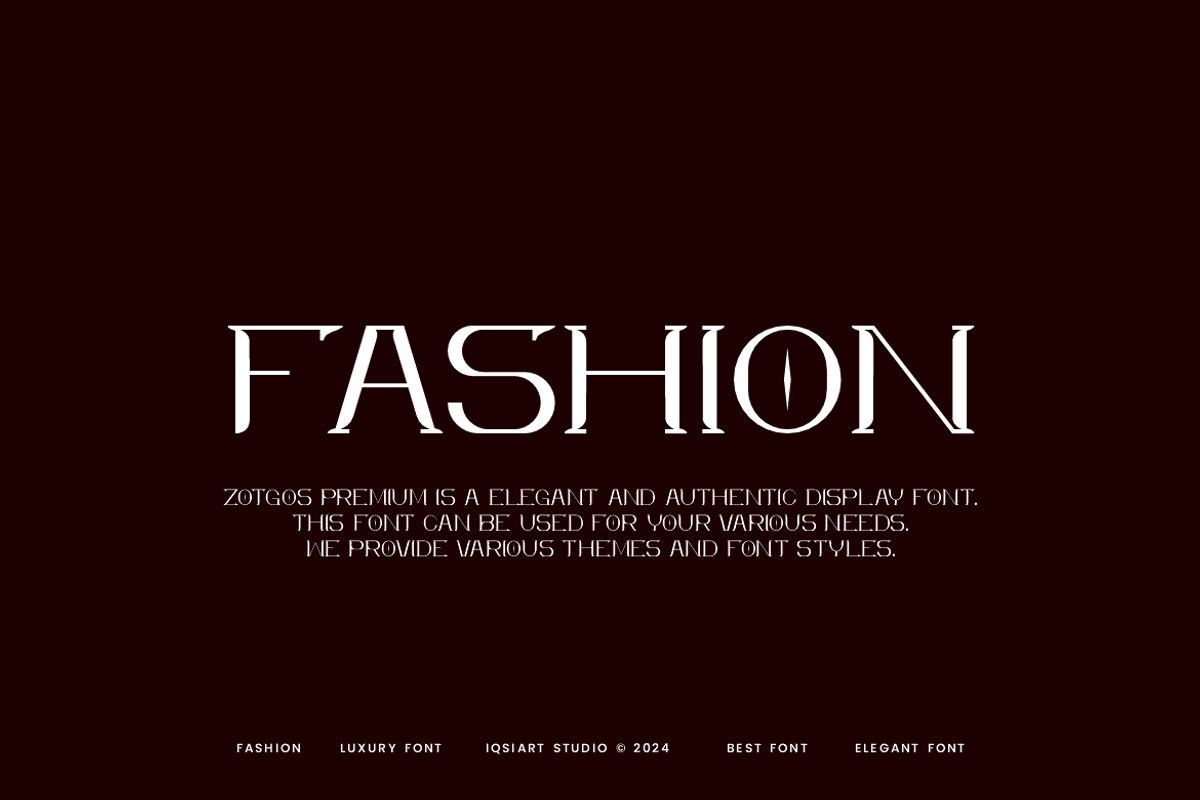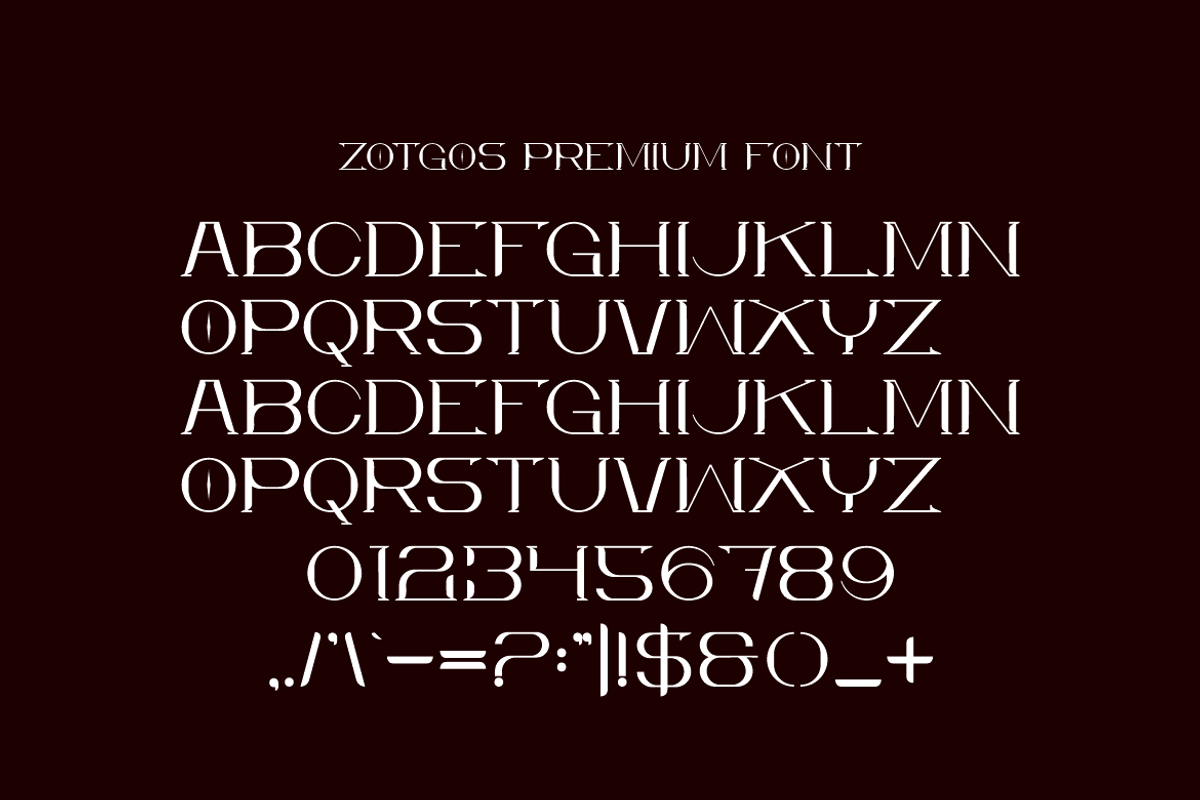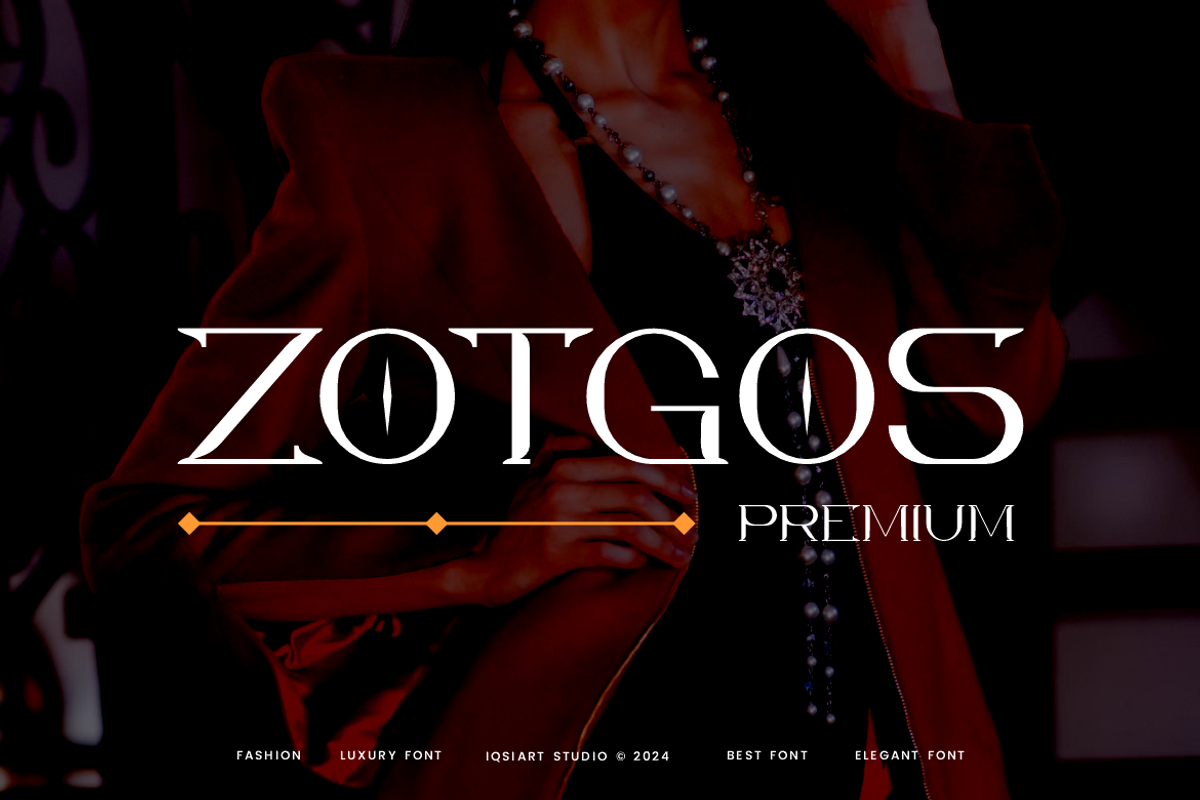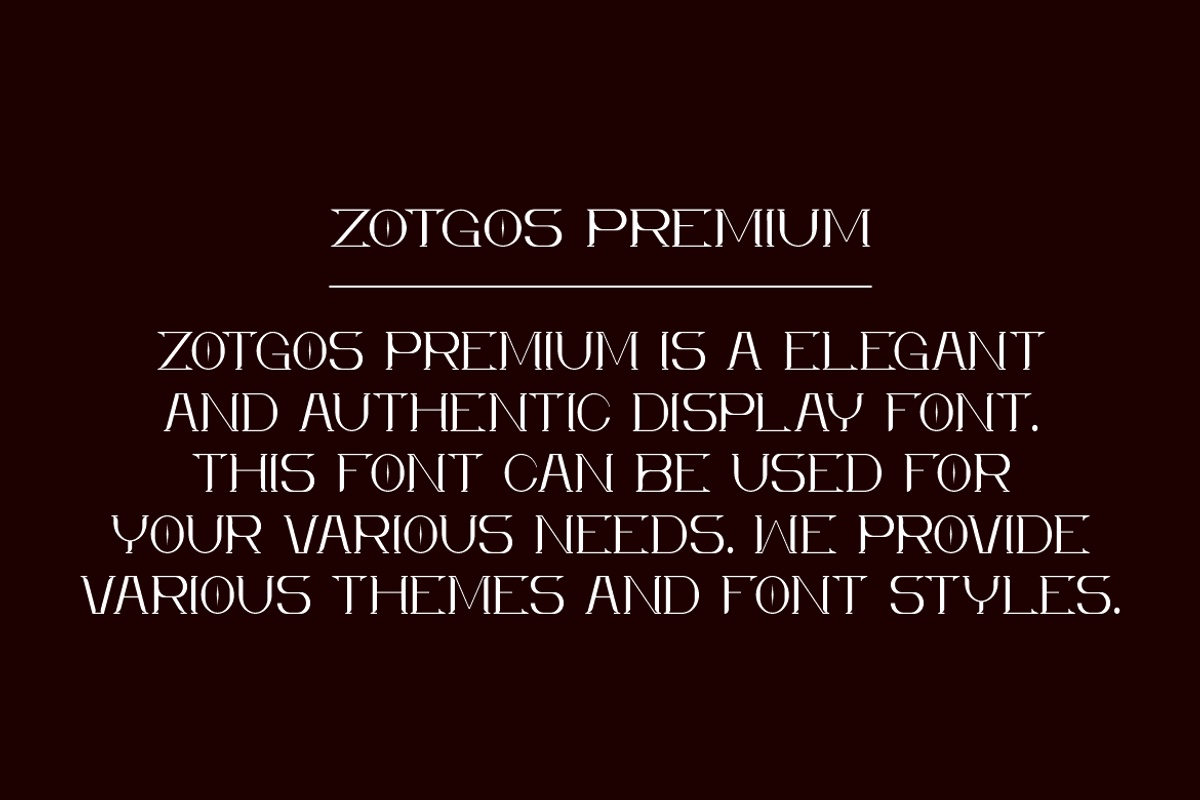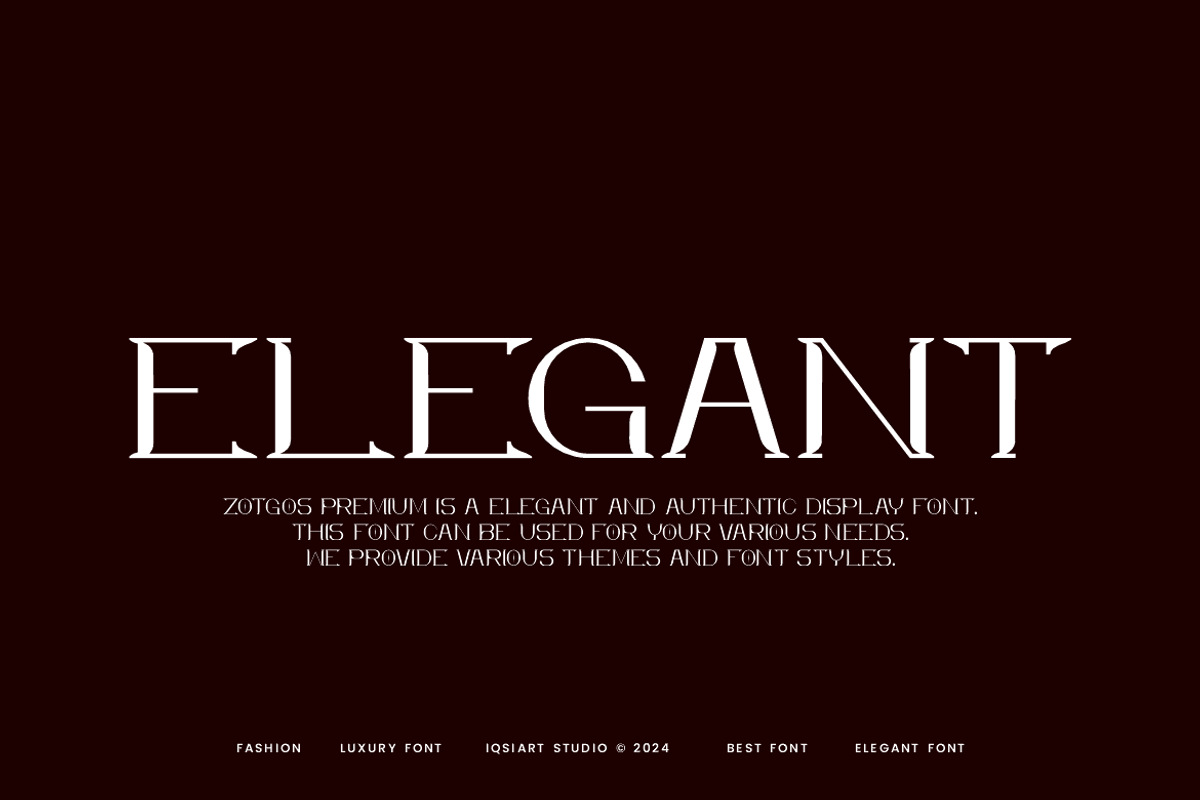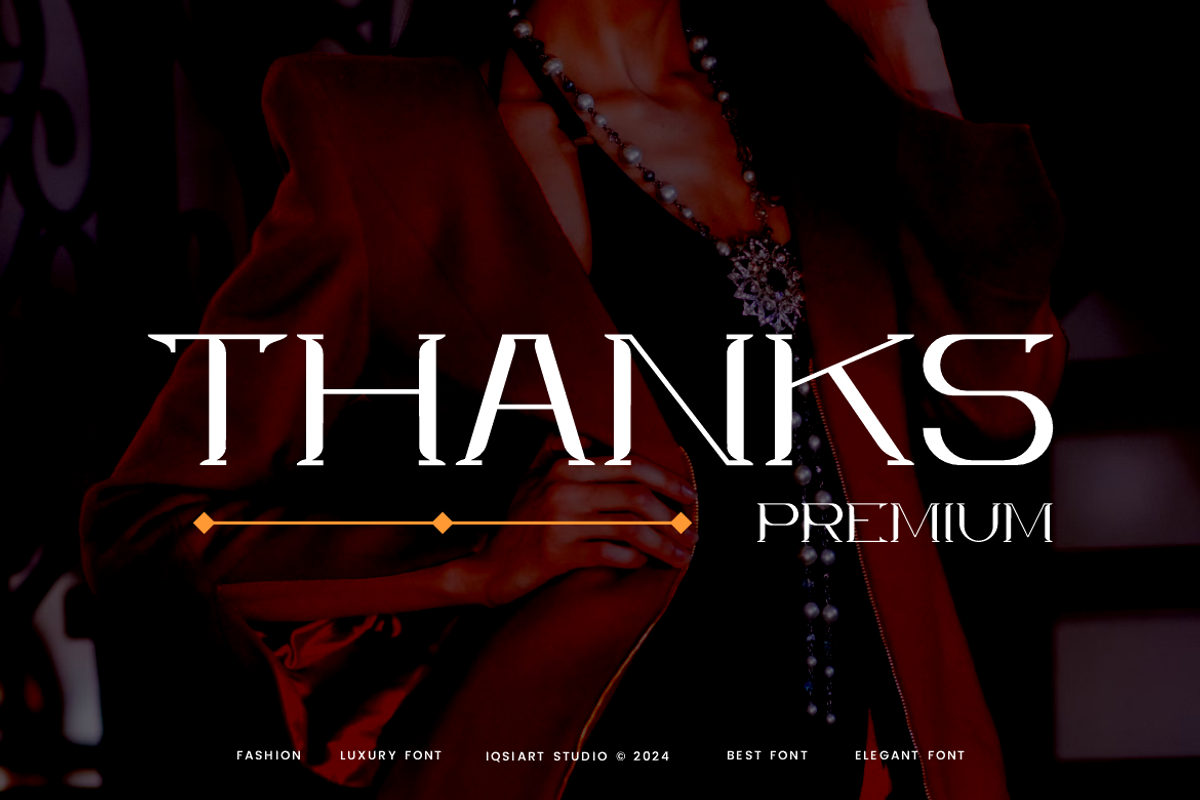
Zotgos Premium - Luxury Font
Zotgos Premium Font is a best and authentic display font. This font can be used for your various needs. We provide various themes and font styles. visit our profile to get a wide variety of themes and different font styles you need.